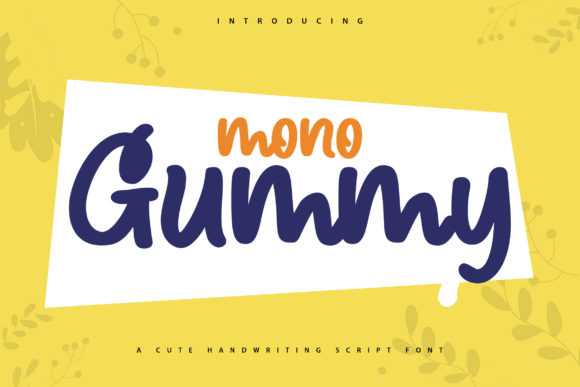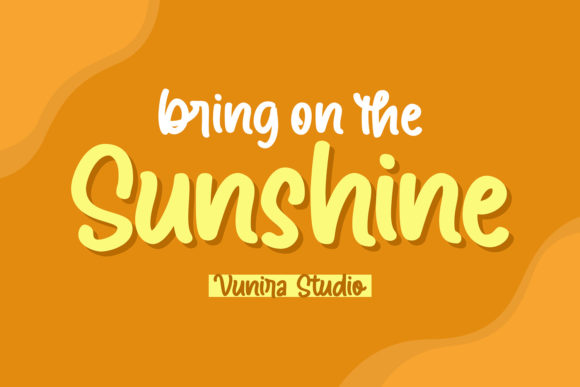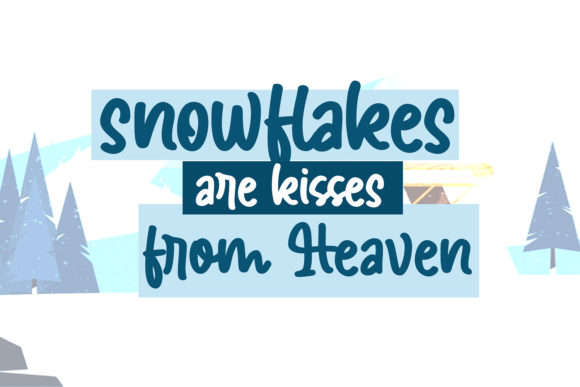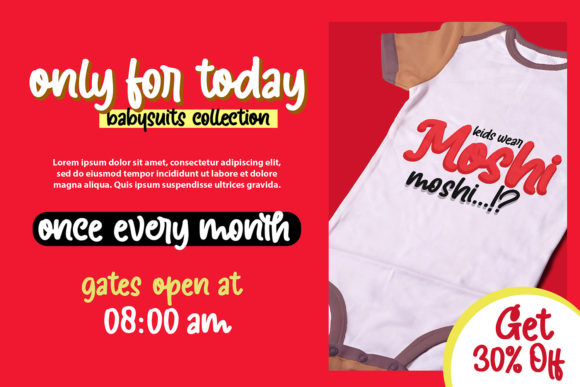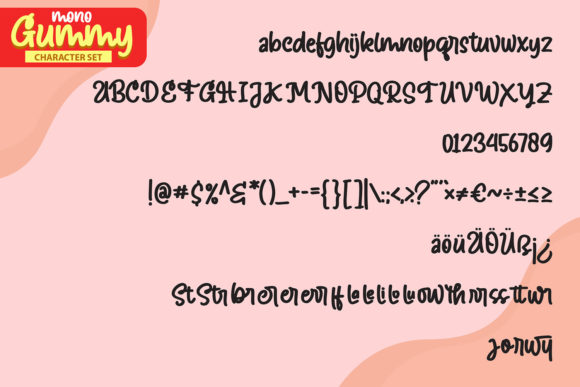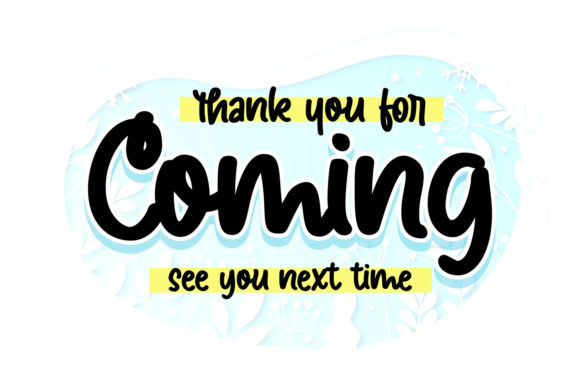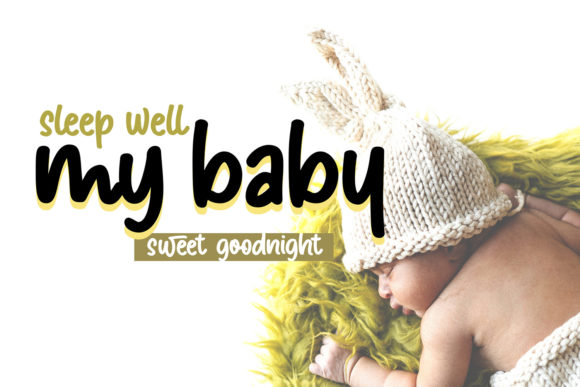
Mono Gummy Font
About Mono Gummy Font
Mono Gummy is a cute, paint brushed handwritten font. Whether you use it for cartoon related designs, children games or just any creation that requires a lovely touch, this font will be an amazing choice.